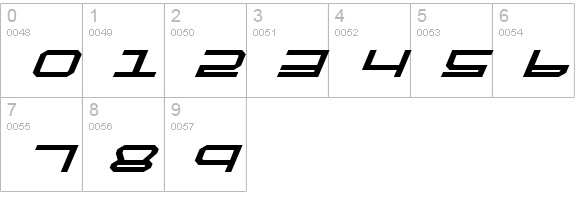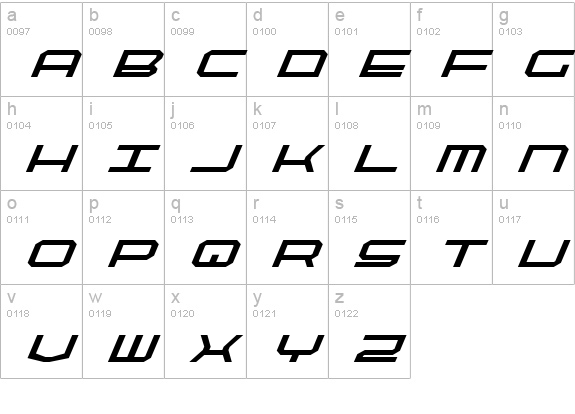
QuickTech Bold Italic is a strong, high-contrast, italic variant in the QuickTech typeface family \xE2\x80\x94 well suited to headlines, attention-grabbing titles, and strong calls-to-action.
Introducing QuickTech Bold Italic, a dynamic and eye-catching font that effortlessly combines the boldness of its design with the elegance of its italics. This font exudes confidence and sophistication, making it the perfect choice for projects that require a touch of modernity and professionalism. QuickTech Bold Italic stands out from the crowd with its unique blend of sharp edges and sleek curves, creating a striking visual impact that commands attention. Its bold weight adds emphasis and strength to any text, while the italicized style lends an air of elegance and refinement. One of the most remarkable aspects of QuickTech Bold Italic is that it is available for free. Yes, you heard that right! This extraordinary font can be downloaded at absolutely no cost from FontsMarket.com, ensuring that designers, creatives, and enthusiasts can access and utilize its exceptional features without any financial constraints. With its versatility and distinctiveness, QuickTech Bold Italic is suitable for a wide range of design projects. Whether you're crafting attention-grabbing logos, designing captivating advertisements, or creating visually stunning websites, this font will elevate your work to new heights. Embrace the power of QuickTech Bold Italic and let it transform your designs with its boldness, elegance, and expressive nature. Download this remarkable font for free at FontsMarket.com and unlock a world of creative possibilities.